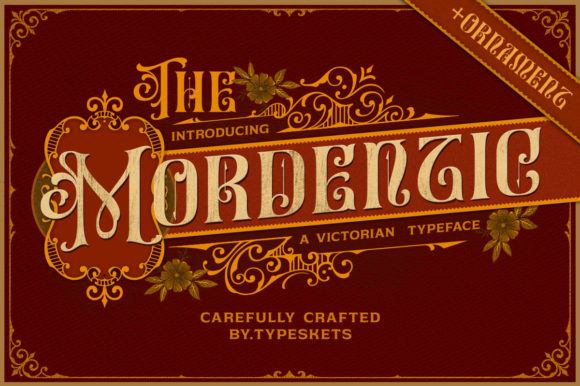
Behold Mordentic, the font that transports you to the grandeur of Victorian design, where elegance and sophistication dance together in perfect harmony. Experience the allure of vintage typography with a font crafted to evoke nostalgia and timeless charm.
Mordentic is more than just a collection of letters; it's an artistic expression that captures the essence of a bygone era. Its carefully crafted strokes and intricate details are reminiscent of ornate Victorian architecture, elaborate engravings, and the delicate beauty of antique jewelry.
Whether you're creating a captivating vintage logo, designing a captivating poster, or crafting a memorable merchandise design, Mordentic is your perfect companion. Its versatility extends to packaging designs, crafts, and any project where a touch of vintage elegance is desired.
With Mordentic, you'll have access to a treasure trove of vintage ornaments, frames, and patterns that will elevate your designs to new heights. Imagine your creation adorned with intricate scrolls, charming flourishes, and beautiful frames that add a touch of timeless sophistication.
Mordentic is not just a font; it's a journey through time, a celebration of the past that brings the beauty of Victorian design into the modern age. Embrace the captivating charm of Mordentic and embark on a creative adventure where your designs will shine with the elegance of a forgotten era.